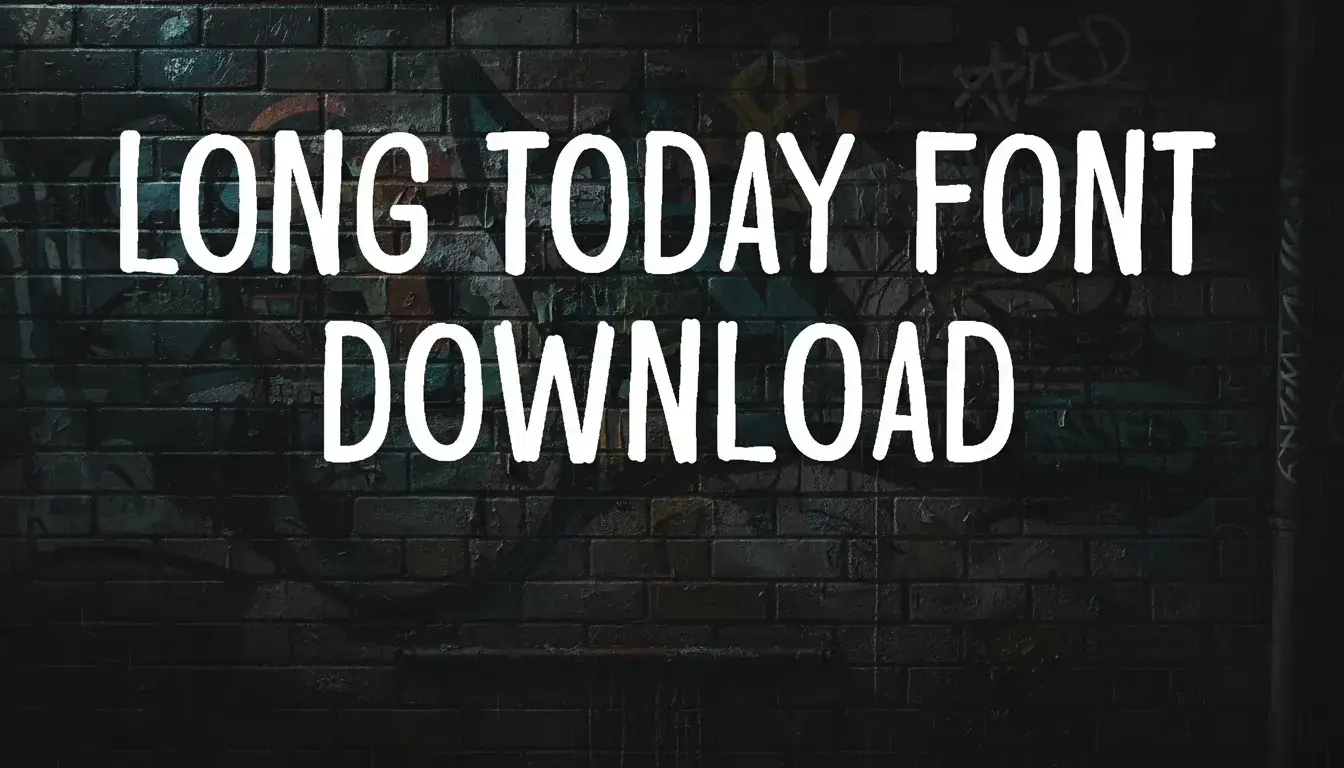
Long Today Font
Long Today
Long Today is a fancy font made by Khurasan. It's a decorative display font with plenty of personality, made to grab attention. It's a free download, and you can try it with your own text in the preview above first.
What You Can Type With Long Today
Long Today covers the full alphabet in upper and lowercase, plus all ten numbers, so you can set names, dates and prices without switching fonts. Common punctuation such as &, !, ? and @ is included as well. It doesn't include accented letters such as é or ñ, which makes it an English-only font.
Where Long Today Works Best
Think of Long Today for posters, logos and eye-catching headlines. Use it for one standout word or headline and let simpler fonts handle the rest.